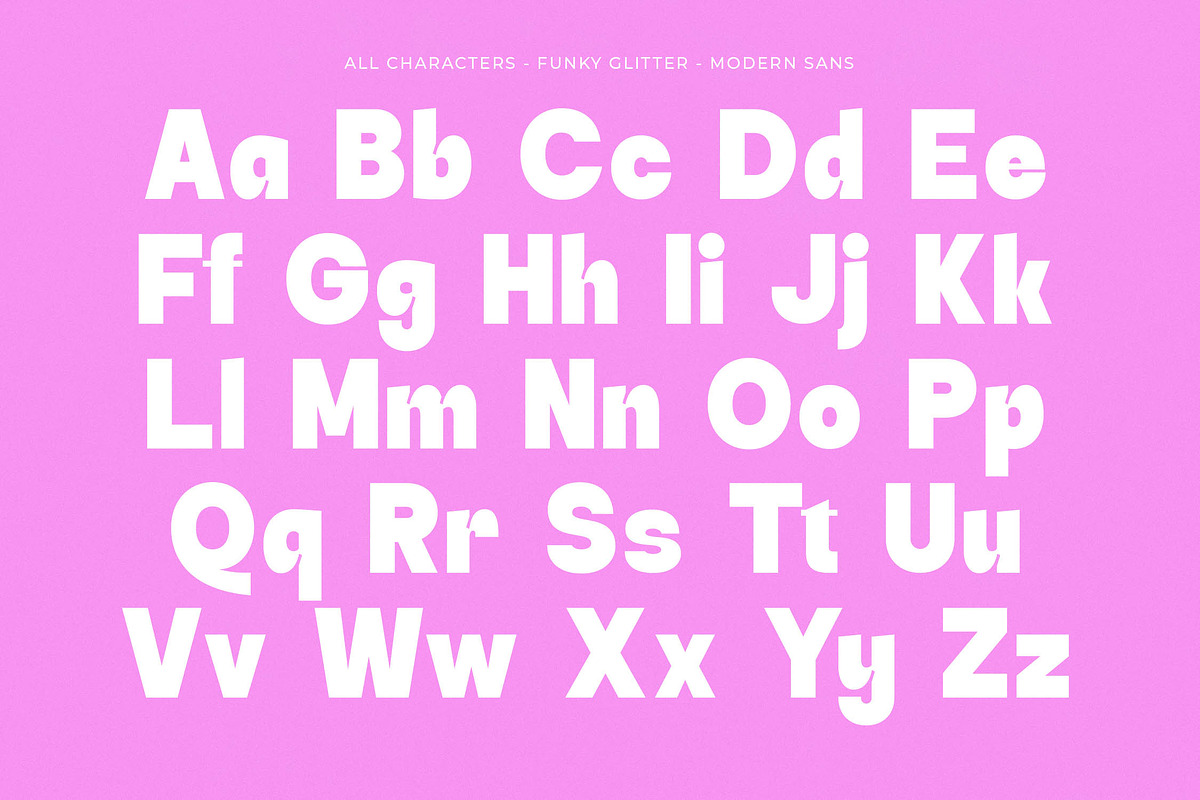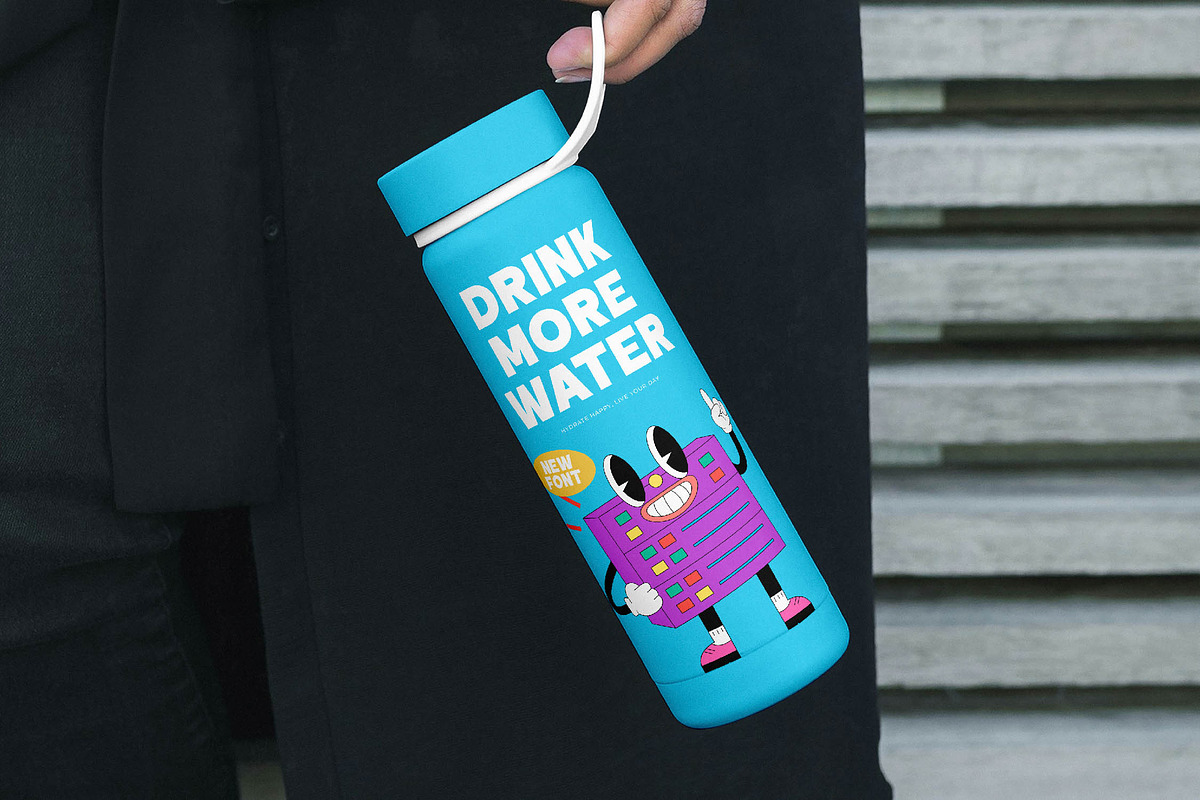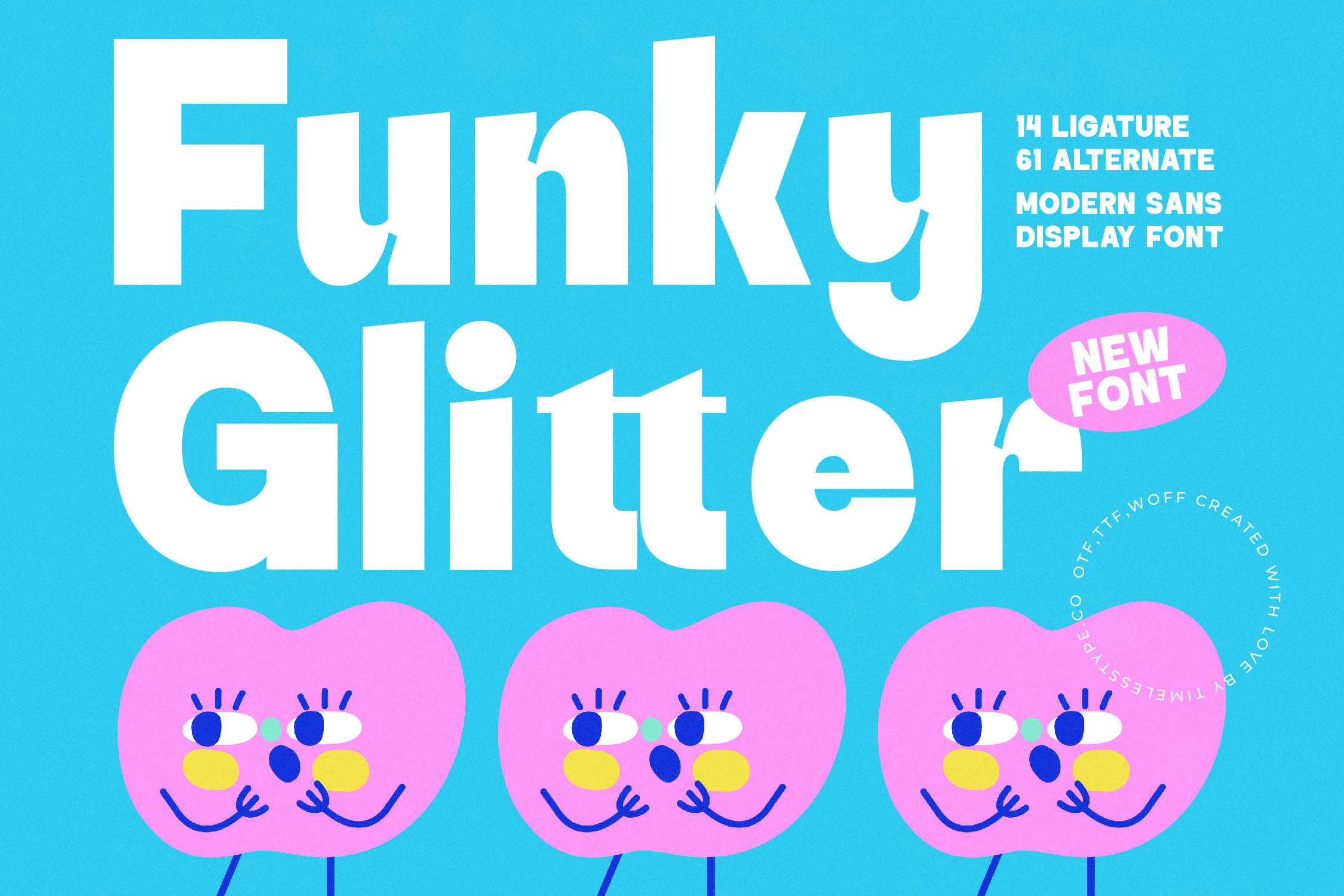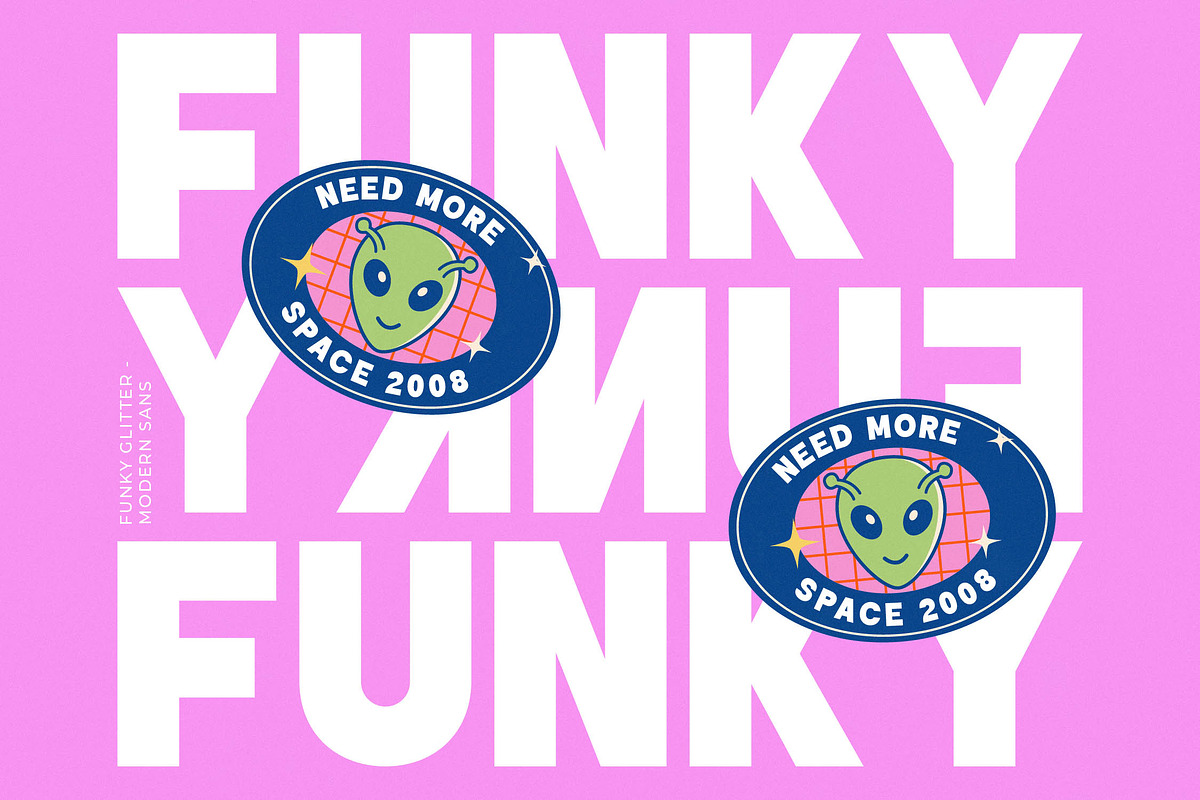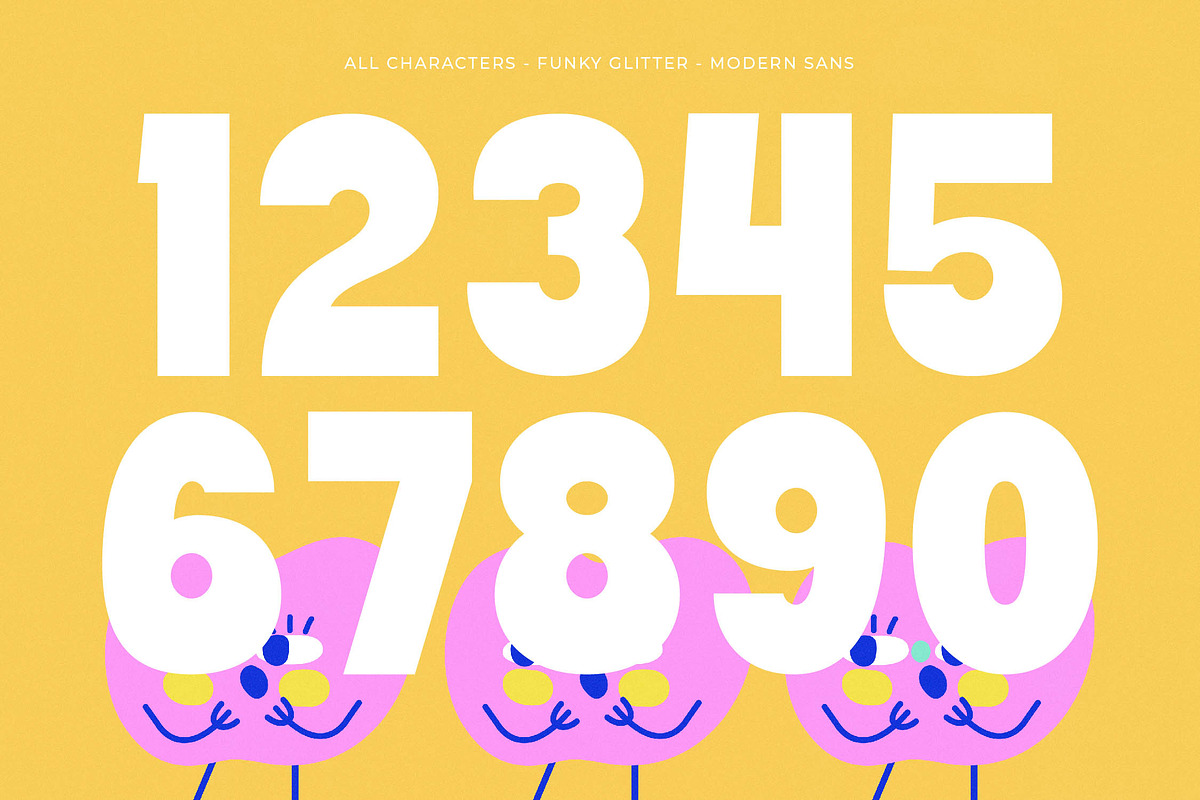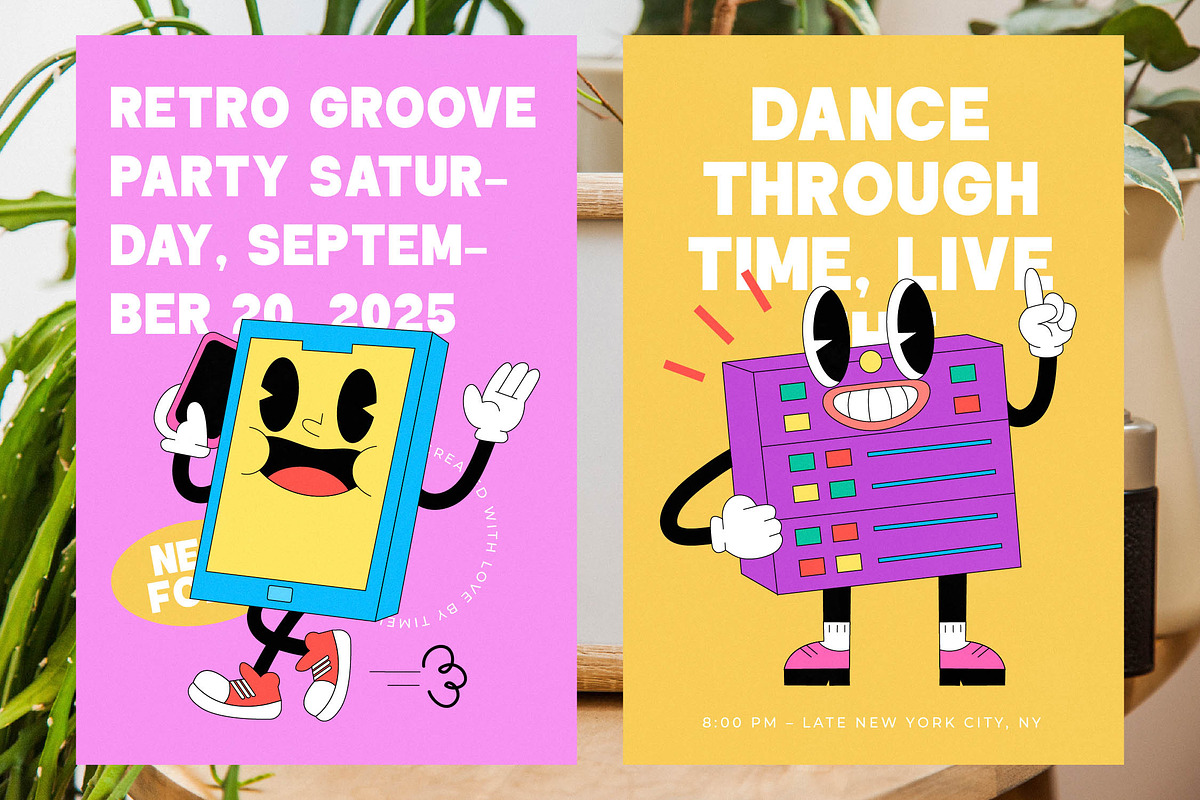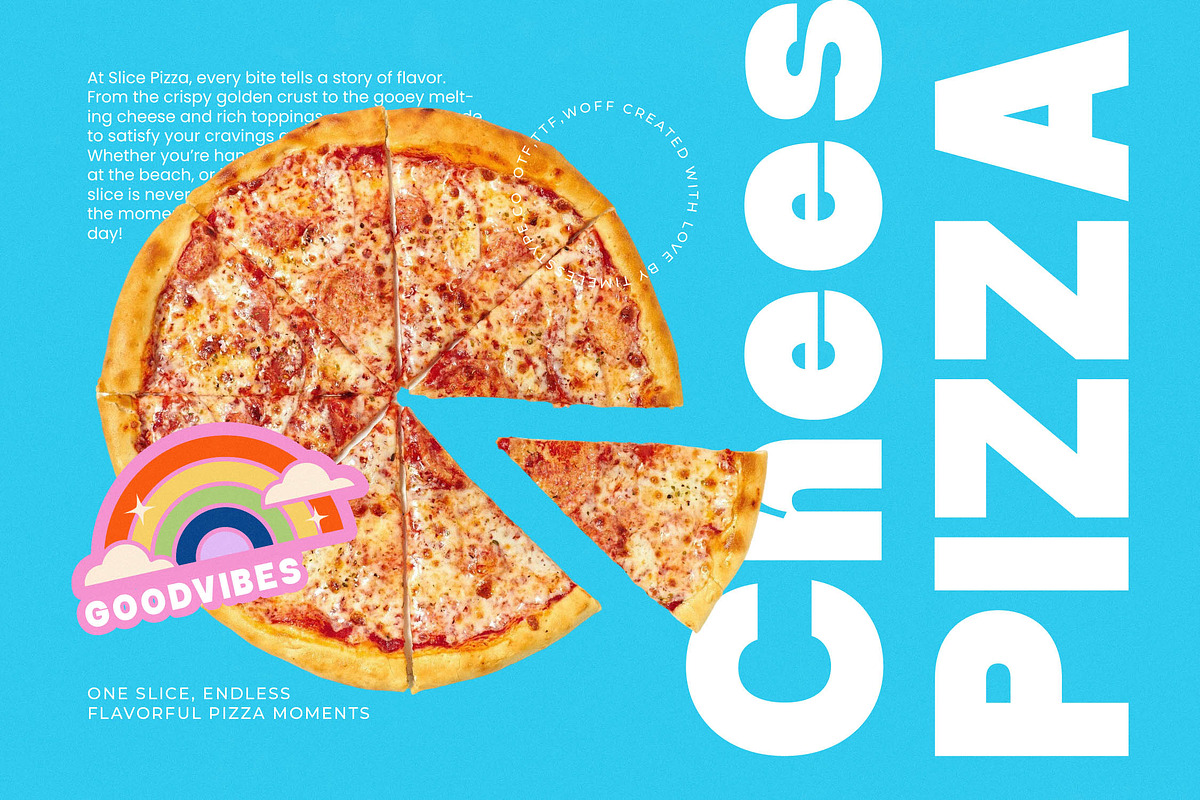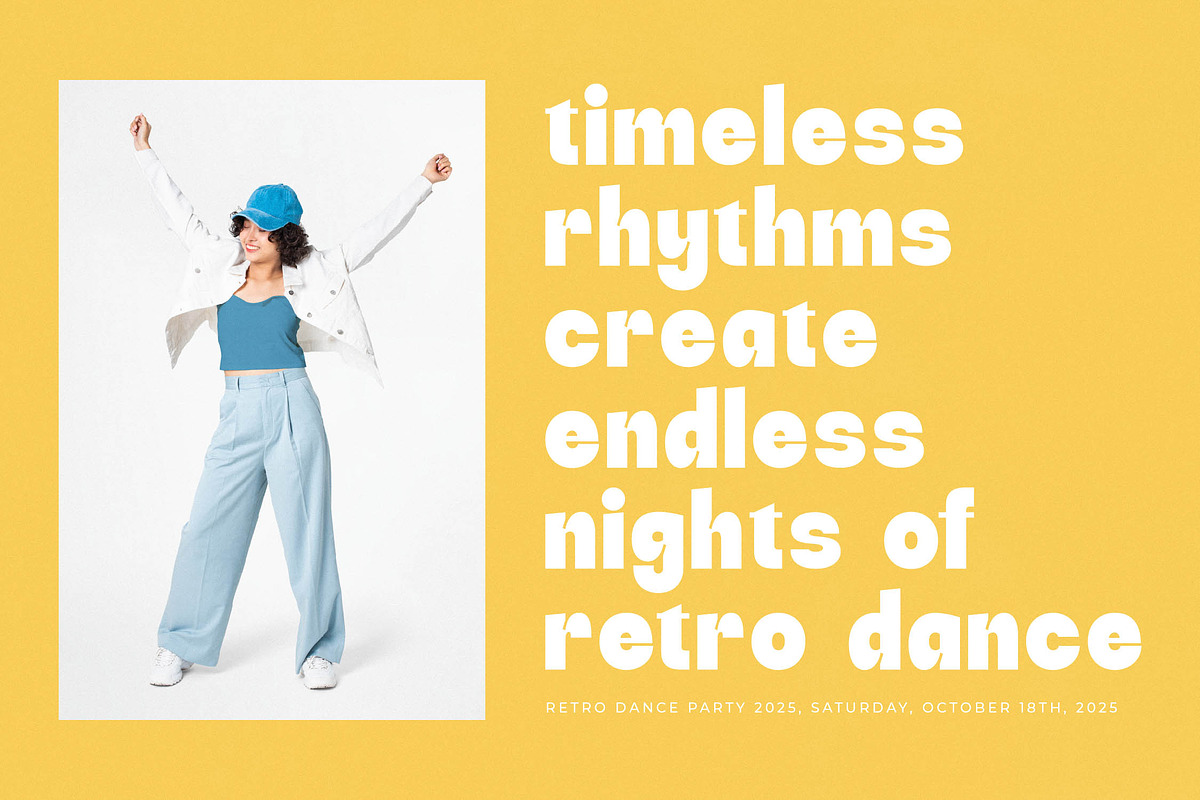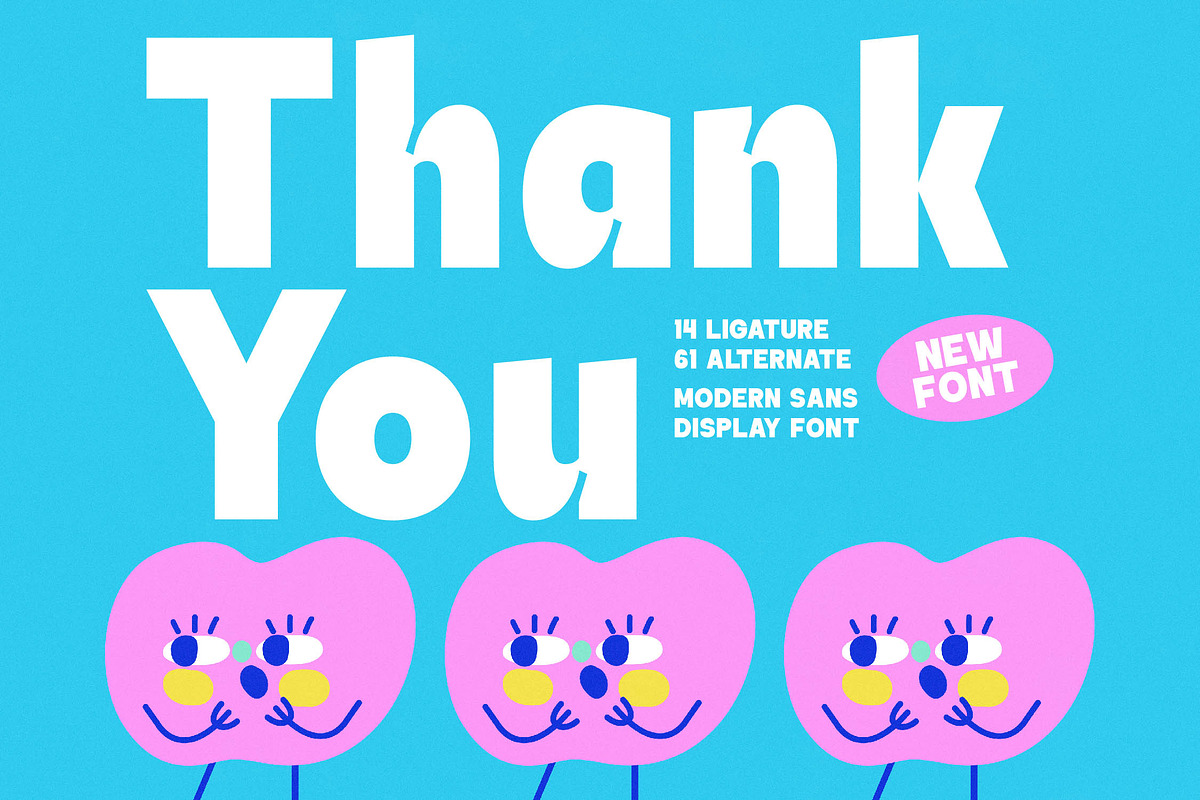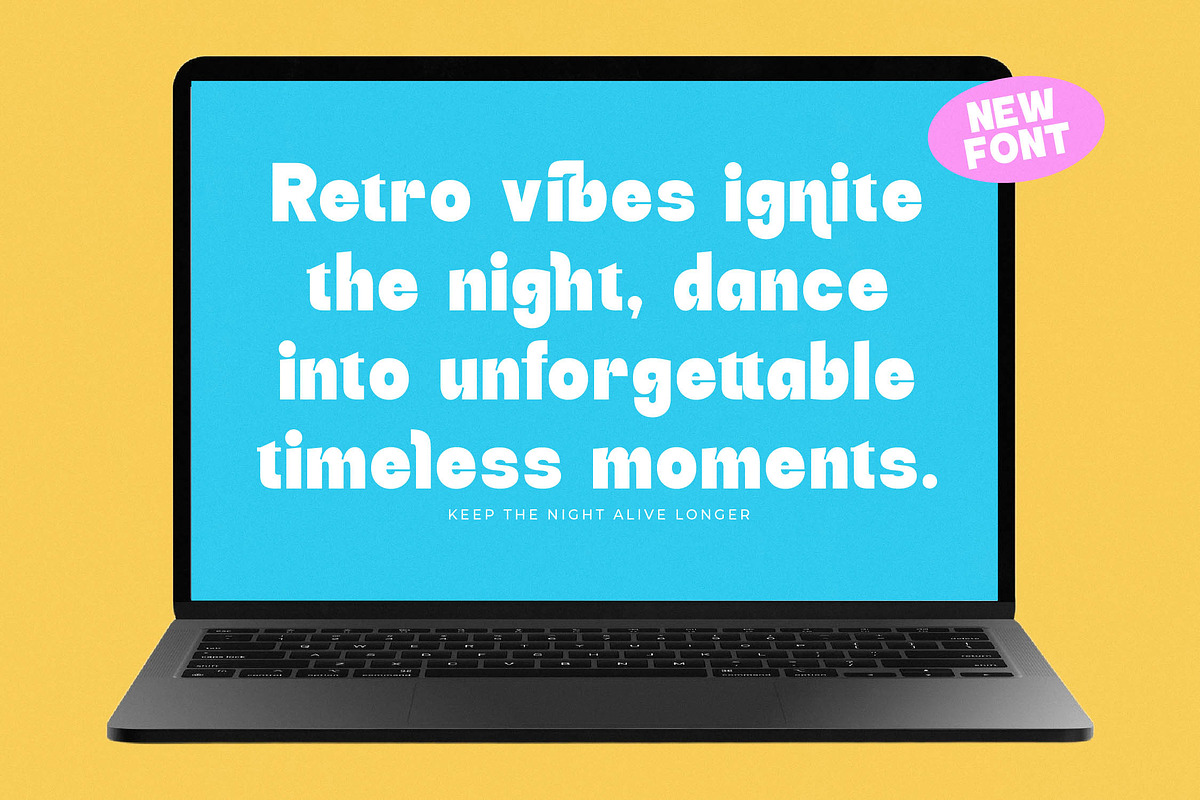
Funky Glitter Modern Sans Font
Step into a world of vibrant energy and unmistakable charm with Funky Glitter. This font captures the essence of bold self-expression, making every design pop with a cheerful, high-impact presence.
Inspired by the groovy aesthetics of the 70s mixed with a clean, contemporary edge, this typeface was born from a desire to blend nostalgia with forward-thinking design. The organic curves and chunky weights reflect a joyful celebration of movement and light.
This modern serif display delivers a luxury typography feel that doesn't take itself too seriously. While it functions as a high-contrast serif in terms of visual weight distribution, it acts as a premier editorial font that ensures your branding impact remains unforgettable and distinct.
Perfectly aligned with the modern serif trend, this typeface brings a fresh perspective to editorial display fonts. It taps into the demand for character-driven typography that breaks away from sterile minimalism to offer something truly tactile and spirited.
Whether you are working on a quirky logo design, a comprehensive branding identity, or an eye-catching editorial layout, this font delivers. It is equally suited for vibrant packaging, whimsical wedding invitations, and high-energy fashion lookbooks.
The package is loaded with over 14 ligatures and 61 unique alternates to provide endless creative combinations. Full multilingual support and a wide range of international characters ensure your message reaches a global audience, while special swashes add that final touch of flair.